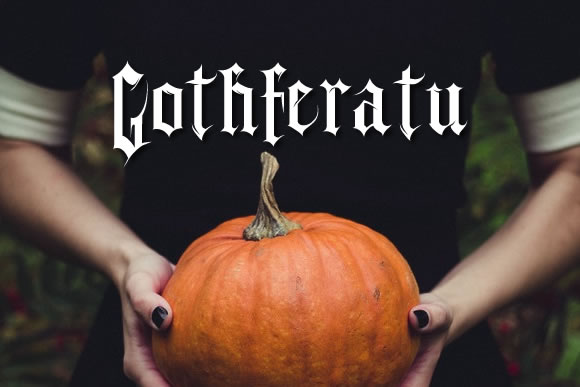
Journey through the dark and mysterious realm of Gothferatu Font, a blackletter font family that evokes an air of captivating elegance. Step into a world of medieval manuscripts, secret societies, and gothic fables as you explore the intricate details and captivating curves of Gothferatu.
With its strong and distinct personality, Gothferatu Font will transport you to a bygone era, adding a touch of antique charm to your creative projects. Its sharp lines and elegant swashes create a sense of timeless beauty, perfect for logos, posters, invitations, book covers, and any design that demands a touch of intrigue and sophistication.
Each character in the Gothferatu Font family is meticulously crafted, showcasing the dedication and artistry of its creator, Jeff Bensch. The result is a font that is not only visually captivating but also highly versatile. Whether you're a graphic designer, an artist, or a creative entrepreneur, Gothferatu Font will become your trusted companion, empowering you to bring your visions to life.
Indulge in the captivating allure of Gothferatu Font and unlock a world of creative possibilities. Let your imagination run wild as you craft designs that resonate with a sense of timeless elegance and intrigue. From the depths of darkness emerges a font that will illuminate your creative journey, leaving an unforgettable mark on your audience.